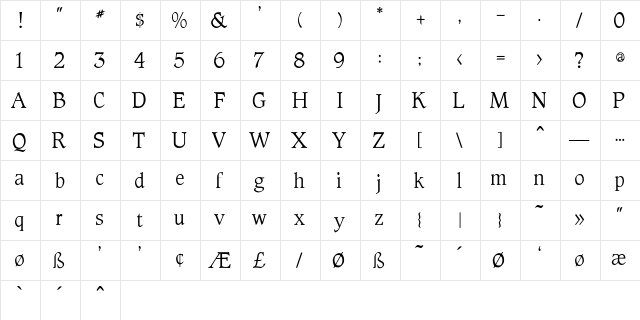
Thomas-Light-Light Regular Font Preview
Thomas-Light-Light Regular
Design Context for Thomas-Light-Light Typeface
Thomas-Light-Light takes a measured approach to typography — its balanced proportions and neutral character make it a reliable workhorse for both digital and print work. The delicate stroke weight brings airiness and refinement to layouts.